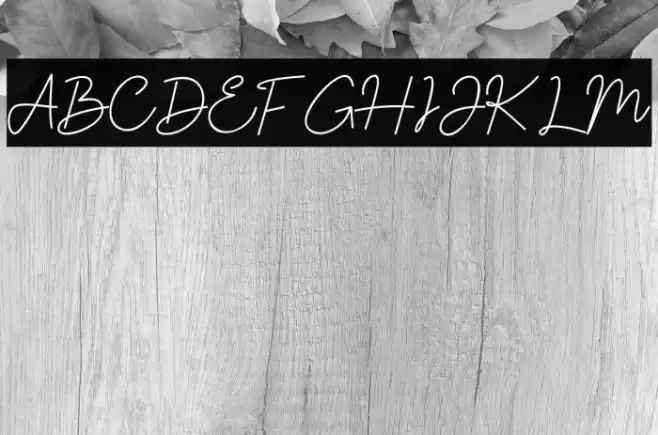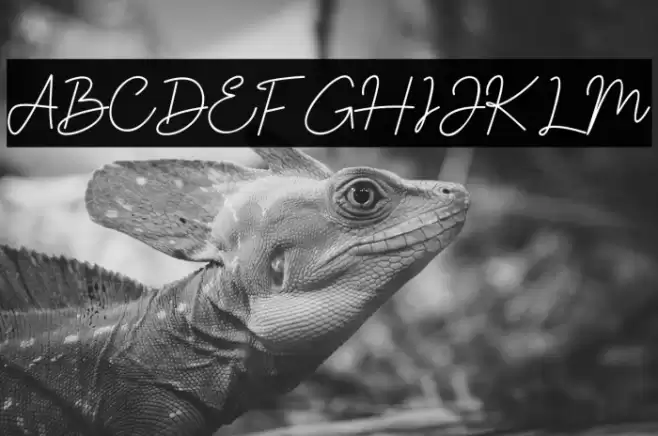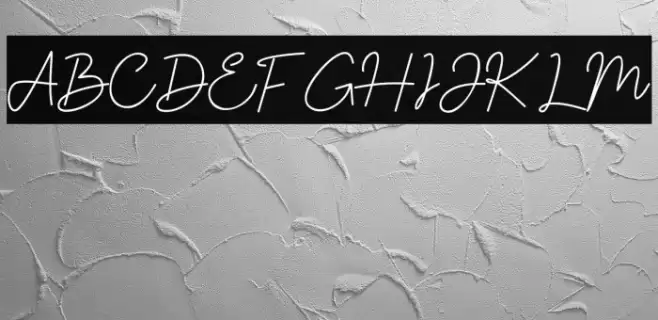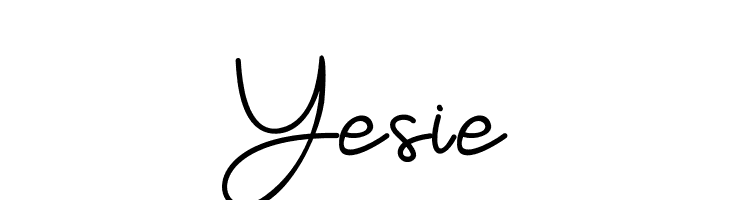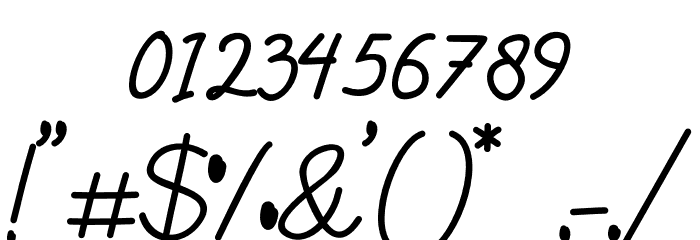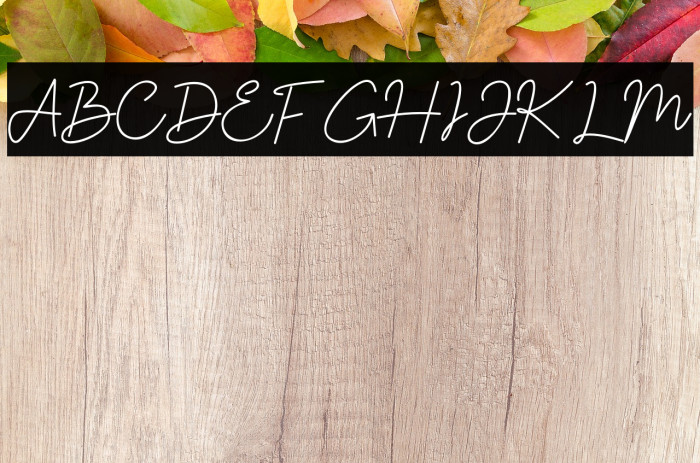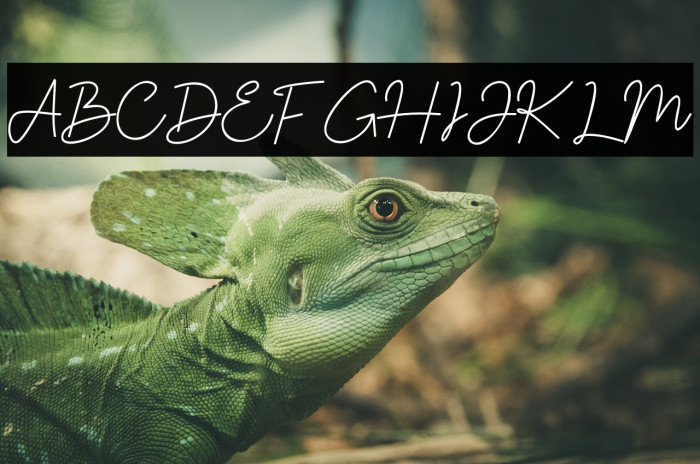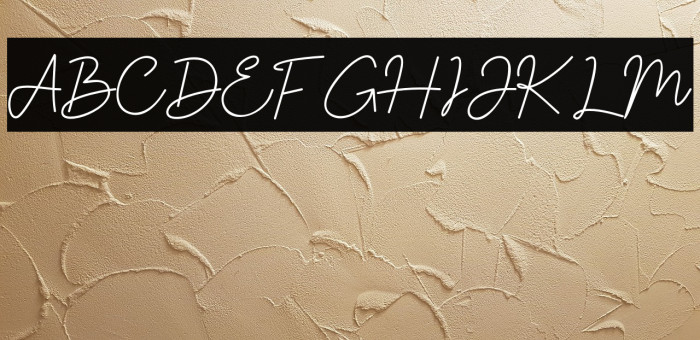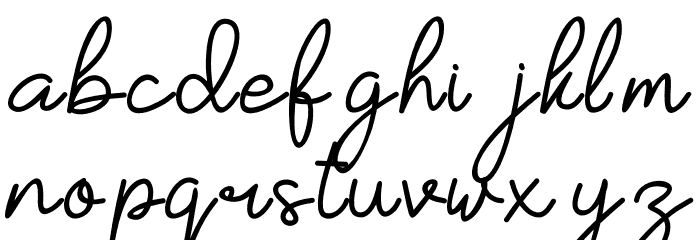
Yesie Font
This font exhibits a flowing, cursive style that mimics elegant handwriting. The uppercase letters are slightly larger and more pronounced, while the lowercase letters maintain a consistent, smooth flow. The characters are connected, enhancing the script-like appearance. The numerals and special characters follow the same fluid design, ensuring uniformity across all elements. The overall look is sophisticated and graceful, making it suitable for projects that require a personal touch. The strokes are consistent in thickness, providing a balanced and harmonious appearance.
A flowing, cursive font with elegant, connected characters from Uncategorized fonts.
- Overall Style: Elegant